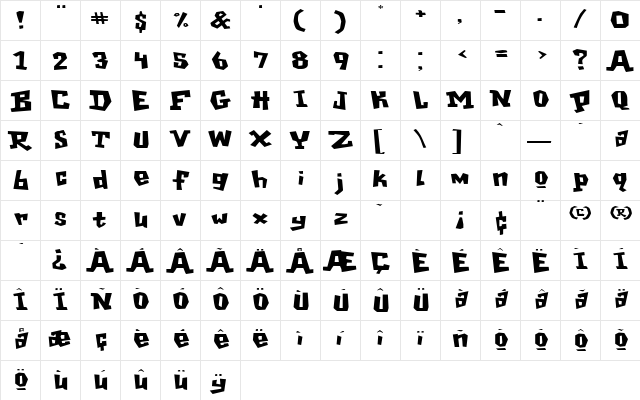
GarageShockExtended Regular
Design Context for GarageShockExtended Typeface
GarageShockExtended is a composed and adaptable typeface that performs quietly and consistently across a wide range of design contexts.